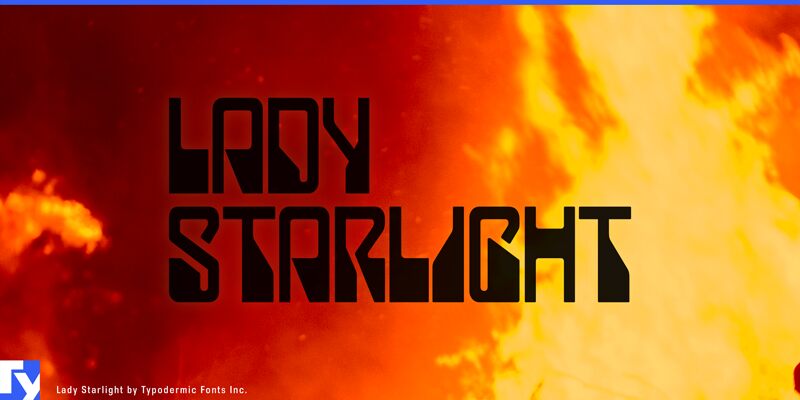
I created the original Lady Starlight font back in 1999, based on the Scorpions band logo. I later noticed that the same font had been used in the 1975 film, Rollerball. Recently, I redrew the entire font, heavier & more precise with more emphasis on working geometric shapes off the waistline.
Lady Starlight
Ray Larabie